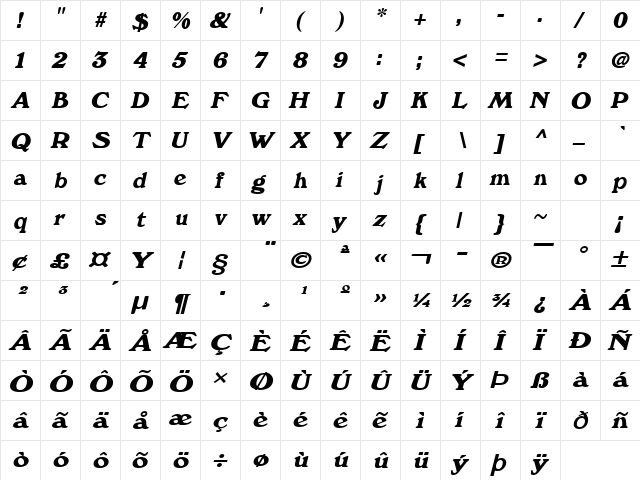
DictionaryExtended Italic
Design Context for DictionaryExtended Typeface
DictionaryExtended is a composed and adaptable typeface that performs quietly and consistently across a wide range of design contexts. The slanted form adds forward momentum and visual energy.
Pro Tip: Use DictionaryExtended for emphasis, pull quotes, and subheadings where its slanted energy can add rhythm to the layout.